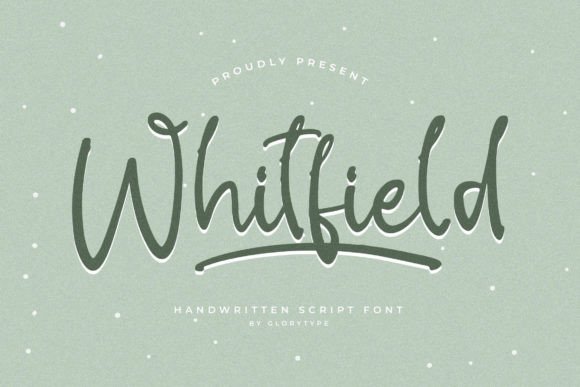
Step into an enchanting world of breathtaking beauty and elegance with Whitfield Font, an exquisite script font family that will transform your creative ideas into enchanting masterpieces. With its graceful curves and elegant lines, Whitfield Font exudes a timeless charm that instantly adds a touch of timeless sophistication to any project.
Immerse yourself in the glorious world of Whitfield Font, a script creation that oozes elegance and charm. This exquisite font family is a testament to creativity and beauty, handcrafted with precision to elevate your designs to new heights. Whether you're a seasoned designer or a creative enthusiast, Whitfield Font is the ultimate choice for those who seek to create truly captivating visuals.
Unleash the boundless versatility of Whitfield Font and explore a universe of creative possibilities. Perfectly suited for logos, branding projects, homeware designs, product packaging, mugs, quotes, posters, shopping bags, t-shirts, book covers, name cards, invitation cards, greeting cards, labels, photography, watermarks, special events, and more, Whitfield Font is the ultimate choice for those who seek to create truly captivating visuals.
Indulge in the beauty of Whitfield Font, a script marvel that will leave you breathless. Its delicate strokes and graceful curves create an enchanting atmosphere that is both timeless and captivating. With Whitfield Font, your words will dance across the page, leaving a trail of elegance and refinement.